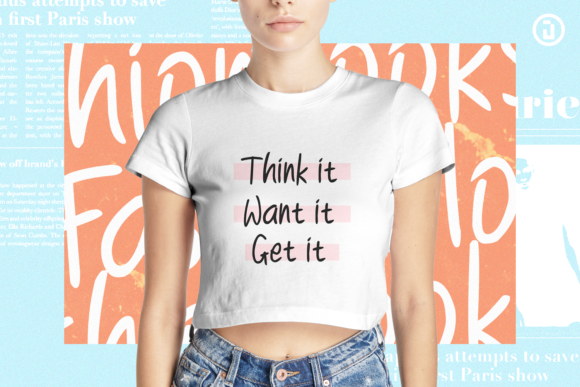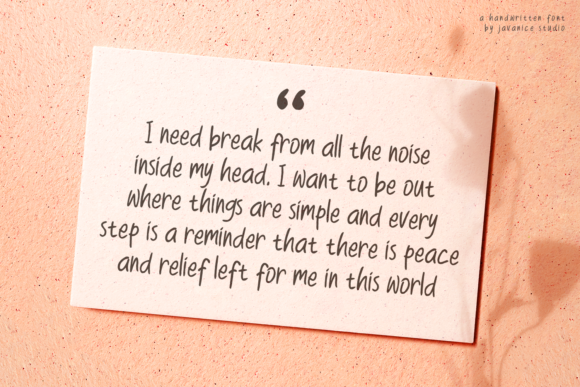
Mainliners Font
db-ku.com - Script & Handwritten -- Mainliners is a relaxed and casual handwritten font. It is perfect for product packaging, branding project, magazine covers, social media, wedding, or just used to express words above the background.